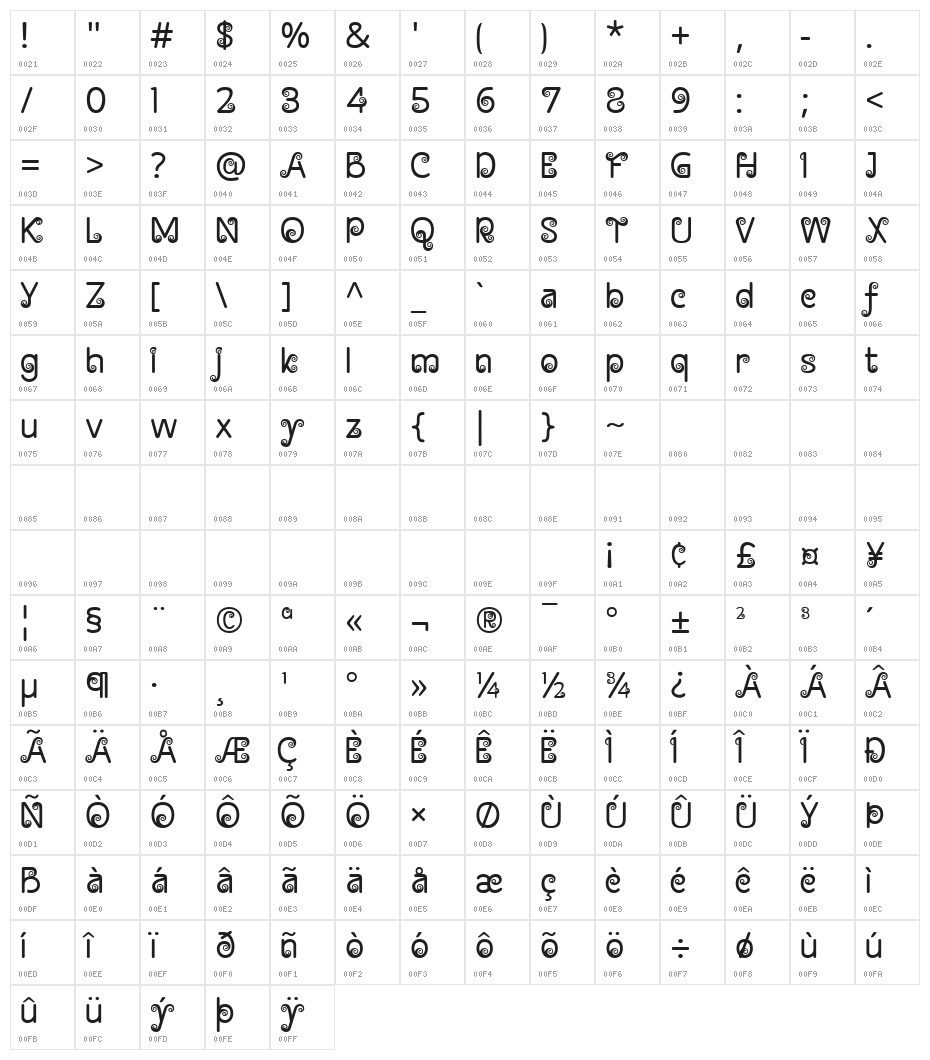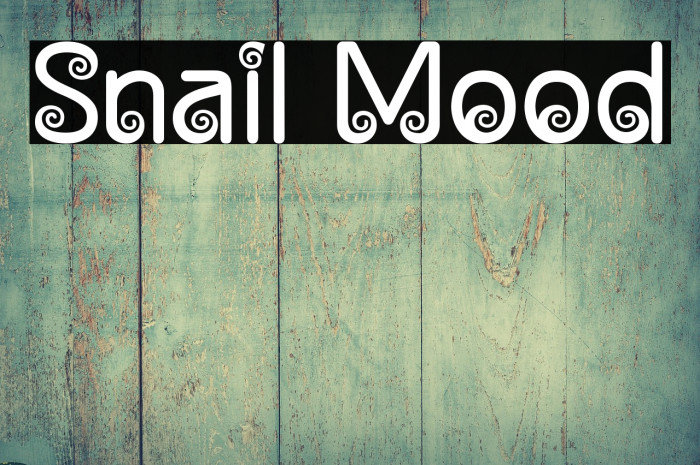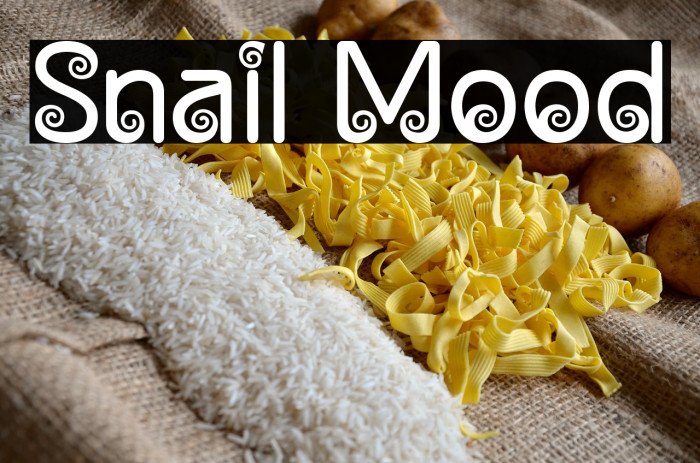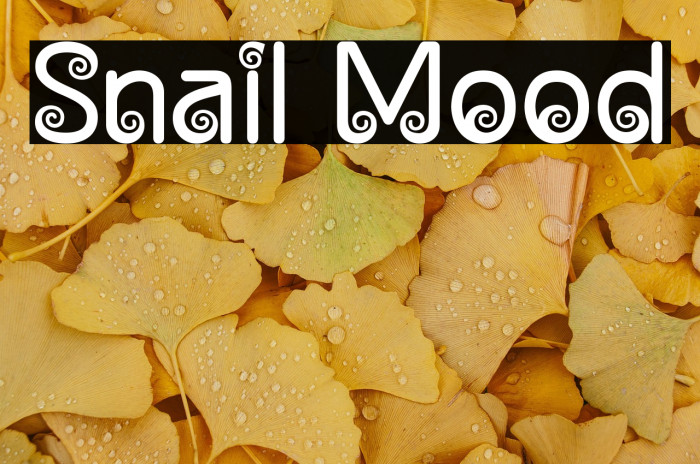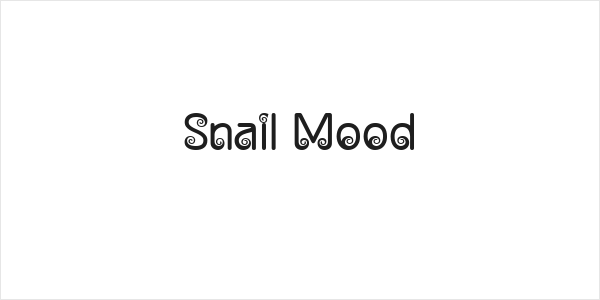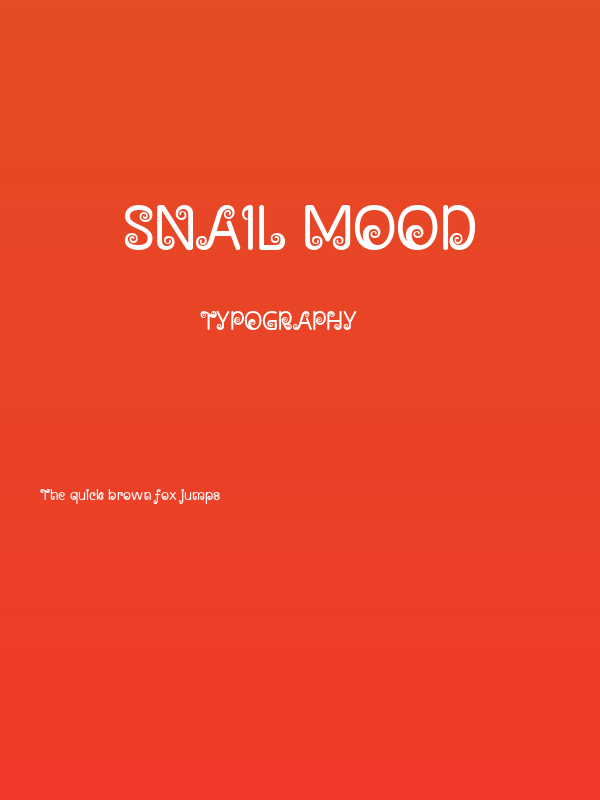
Snail Mood Font
Snail Mood Description
This playful and whimsical font features a unique spiral design incorporated into each character, giving it a distinctive and eye-catching appearance. The bold strokes and decorative swirls create a sense of fun and creativity, making it ideal for projects that require a touch of personality and flair. The font maintains a consistent weight throughout, ensuring readability while still offering a decorative touch. Its quirky style is perfect for children's books, playful branding, or any design that aims to capture a sense of joy and imagination.
| Proposed Projects | Ideal for children's books, playful branding, greeting cards, and creative posters. |